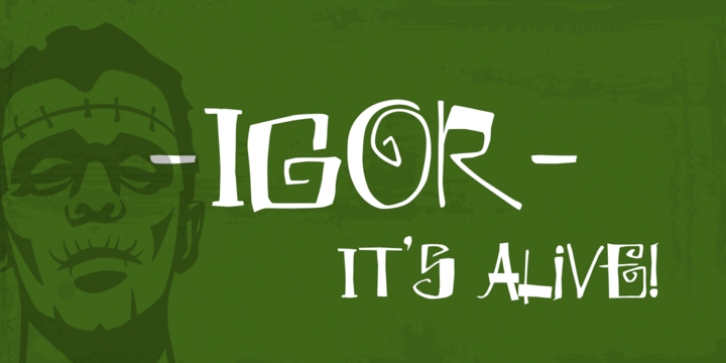
Igor is a hand drawn font designed for display use - it is mainly all cap with different glyphs for capitals and lowercase. Its purposefully messy design will look great on invitations, posters and headlines.